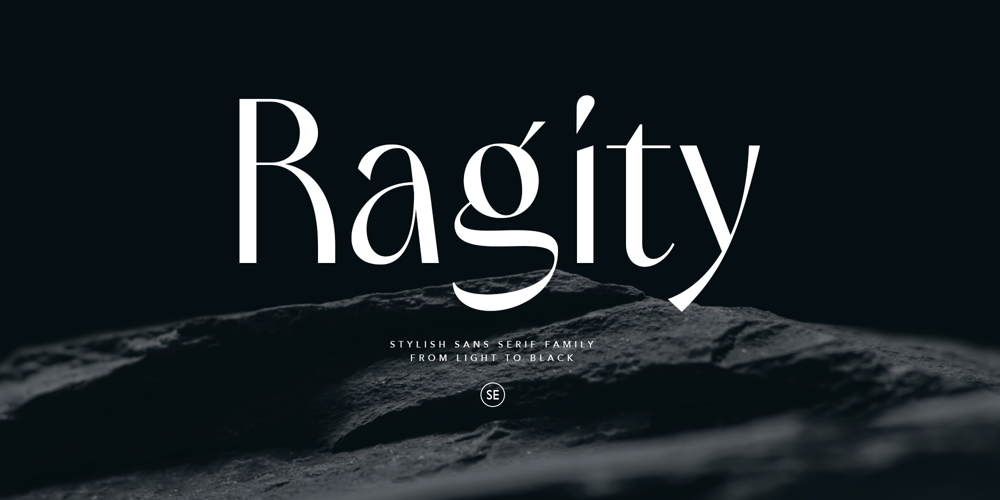
Ragity Font Family was designed by Sarid Ezra and published by Sarid Ezra. Ragity contains 7 styles and family package options. Ragity is a stylish and modern sans that have minimalist looks with beautiful details. You can use this font for any purposes such as wedding invitation, logo, quotes, and also excellent for branding. With 7 weigh from Light to Black, you can choose how bold your project needs. This font also support multi language.!